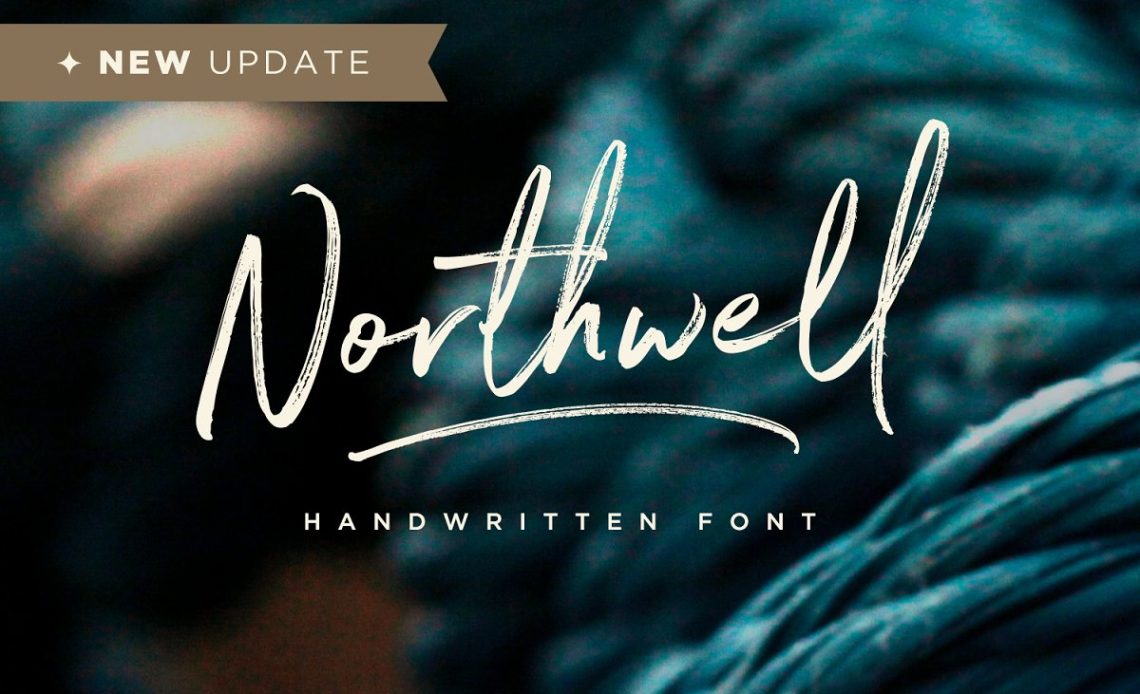
Introducing the newest addition to your font collection - Northwell! Created by Sam Parrett, this rustic and dapper handwritten font is sure to add a personal touch to any project. The font features quick dry strokes and a signature style that makes it perfect for branding projects, homeware designs, product packaging, or even as a stylish text overlay to any background image.
But that's not all - Northwell has recently been updated to include 2 styles - a rustic textured version, and a totally clean and smooth version. This gives you the flexibility to switch up the style of your font with just one click, whether you're looking for a more hand-made, rustic style, or a silky smooth finish.
In total, Northwell includes 6 font files, each with their own unique features. The first font file, Northwell, contains both upper and lowercase characters, numerals, and a wide range of punctuation. The second font file, Northwell Alt, features a completely new set of both lower and uppercase characters, making it the perfect option for creating custom-made styles or trying out different word shapes. The third font file, Northwell Swash, includes a set of 20 hand-drawn swashes that are the perfect finishing touch to underline your Northwell text.
And if you're looking for a smoother finish to your designs, Northwell also includes clean versions of the above 3 fonts - Northwell Clean, Northwell Clean Alt, and Northwell Clean Swash. These fonts have had the rough brush texture removed and replaced with a completely smooth edge, making them ideal for specialist printing or simply for a sleeker finish to your designs.